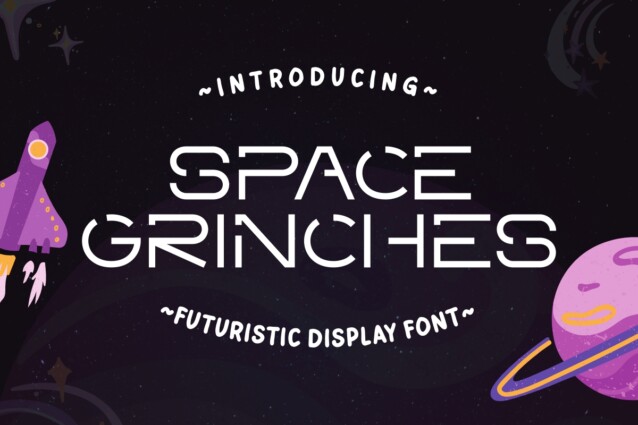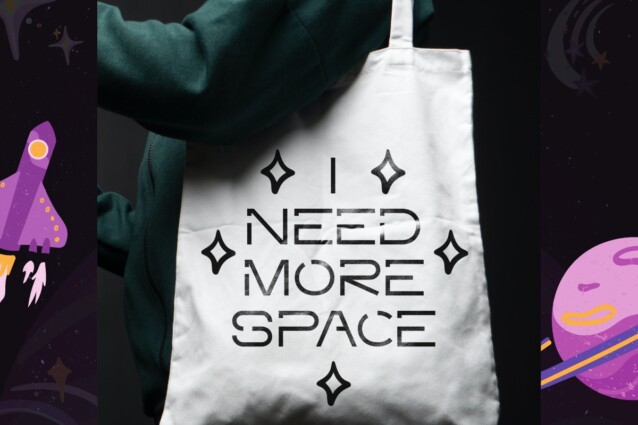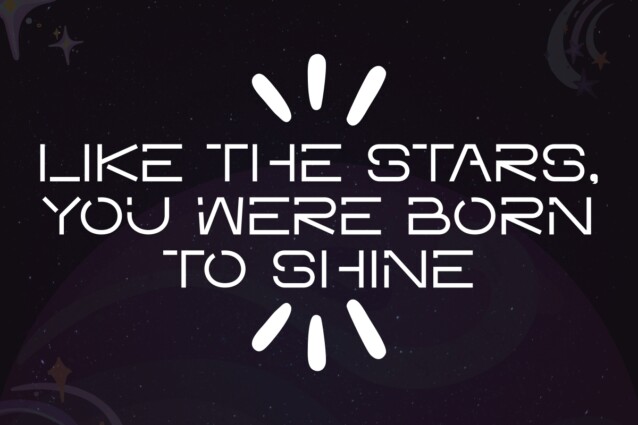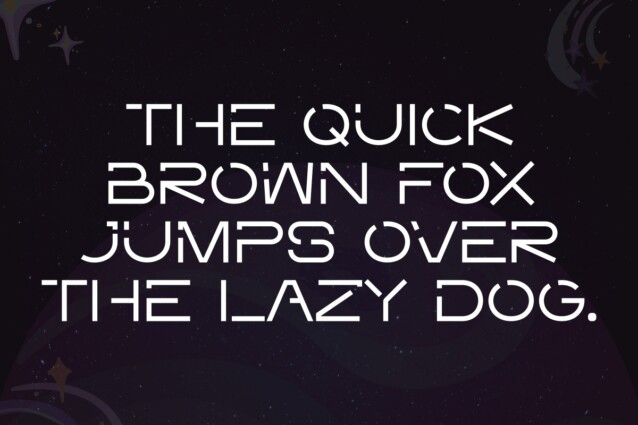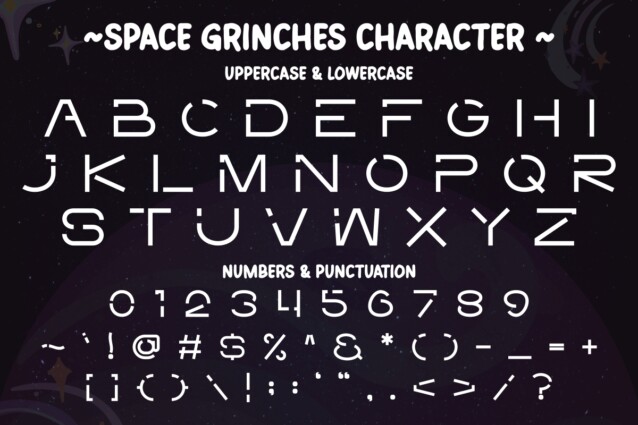
Space Grinches Font is a modernity cosmic font with futuristic style. Space Grinches is perfect for creating sleek and trendy scifi designs, from space-themed branding to futuristic digital interfaces.